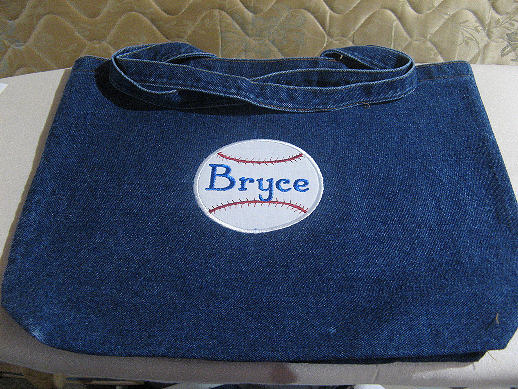
Diana Font - 3 Sizes
For all your stitching pleasure, I'm pleased to offer Diana font.  Very classic font, perfect for lettering or monograms, the package includes 3 sizes, approximately 1 inch, 1 1/2 inch and 2 inch heights and fit the 4x4 hoop.  This is a great font for creating stacked names.